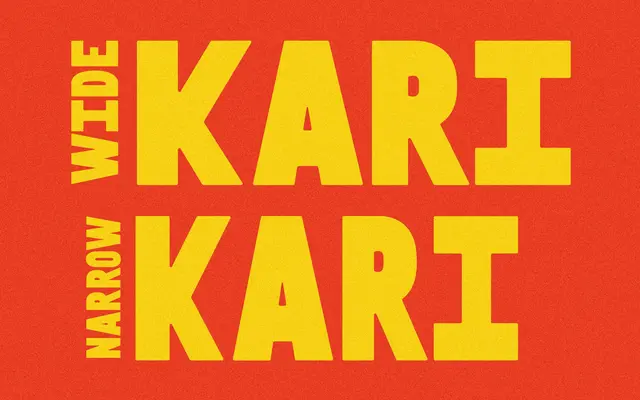
Kari
Taylor Penton · Taylor Penton, Abraham of Sabio Salon
A collaborative display font with regular and condensed widths baked into a single OTF, toggled via the shift key.
Designed by Taylor Penton in collaboration with Abraham of Sabio Salon, Kari packages two widths into one file, with the condensed variant accessed by holding shift rather than loading a separate font. The glyph set covers 151 characters with basic Latin and a limited selection of accented forms. Suited to logos, packaging and short display settings where a hand-drawn quality is wanted.
Described explicitly as a display font by the foundry, with regular and condensed widths toggled via the shift key rather than separate font files, placing it squarely in the display category.